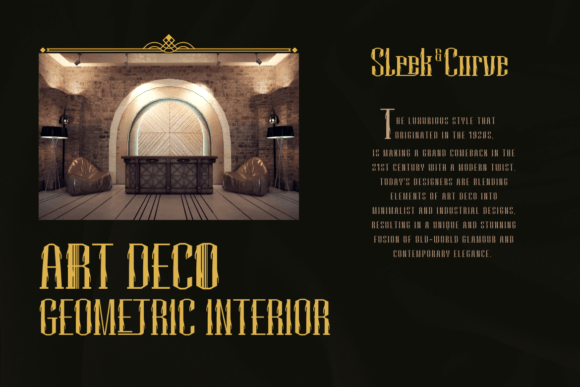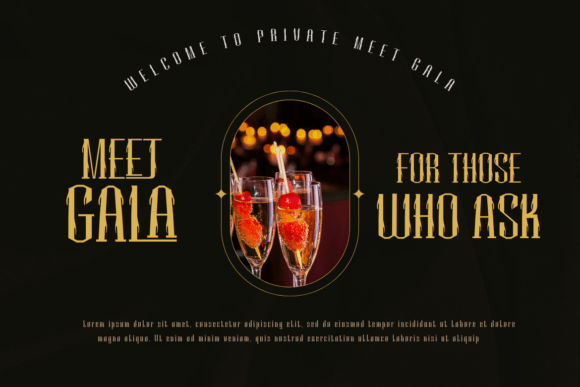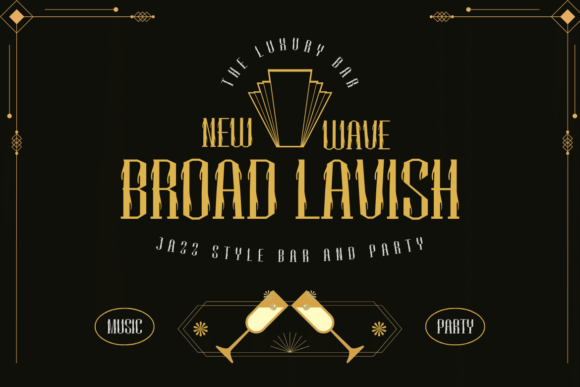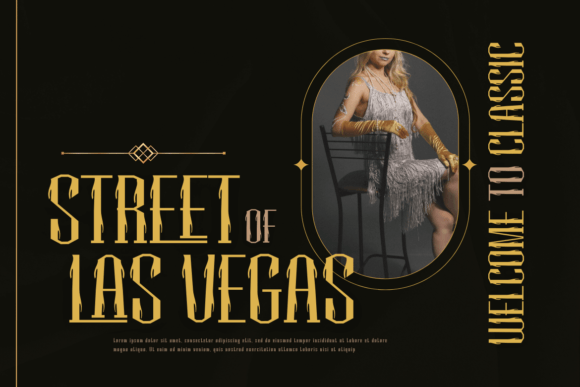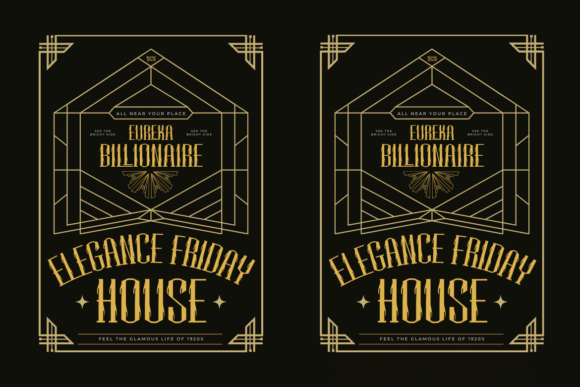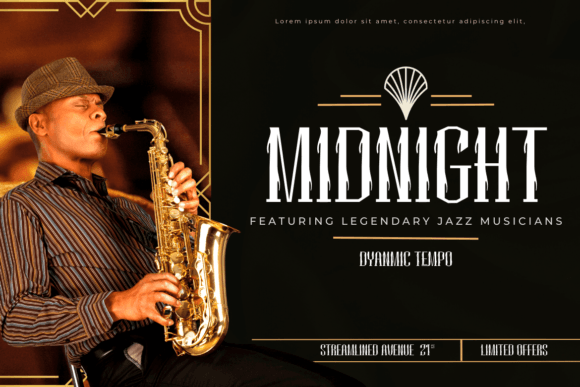
Introduction to Mihbur Font
Introducing Mihbur, a font that exudes elegance and sophistication.
With its sleek lines and geometric shapes, this font captures the essence of the Art Deco movement while also offering a modern twist Whether youโre designing invitations, posters, or branding materials, Mihbur is the perfect font to add a touch of vintage glamour to your work.
Key Features of Mihbur Font
Why Choose Mihbur Font?
Mihbur Font offers exceptional quality and versatility, making it a valuable addition to your design toolkit. Whether you’re creating for personal projects or commercial use, Mihbur Font delivers professional results.